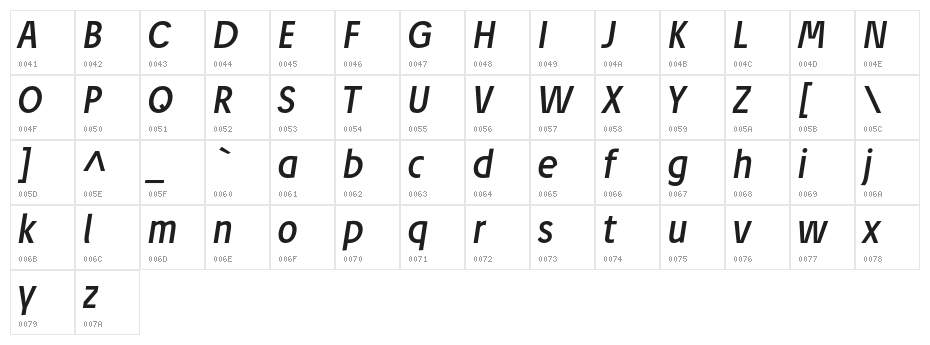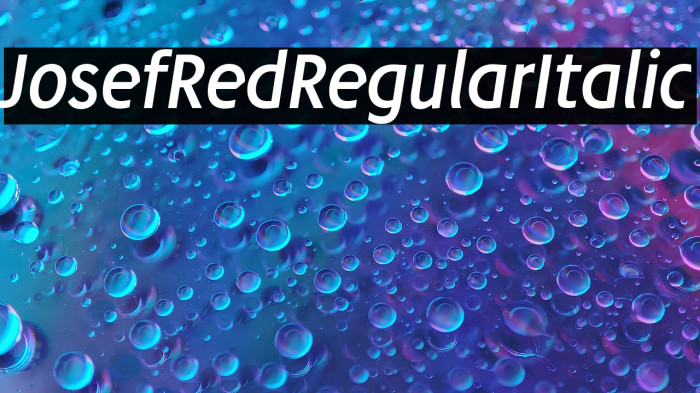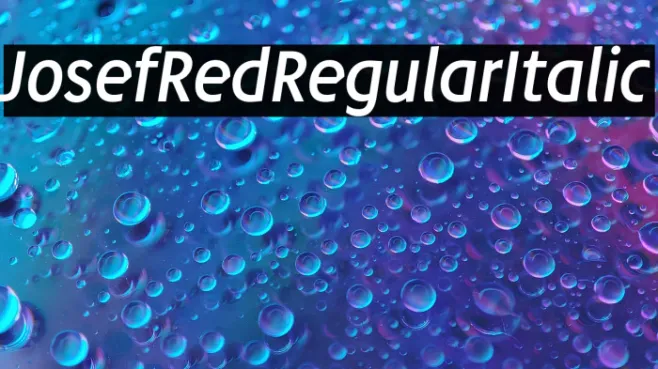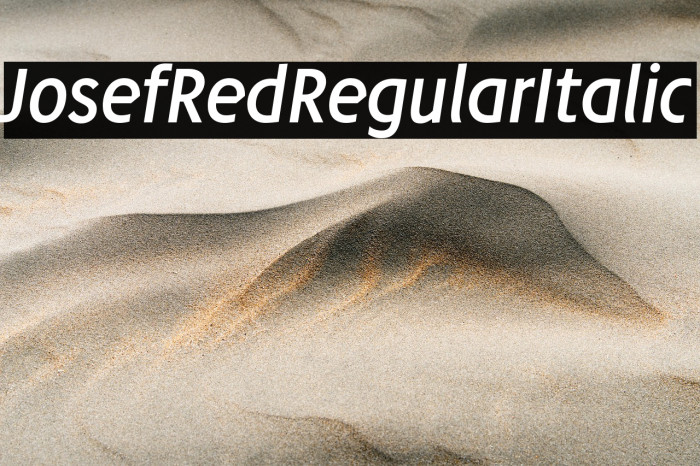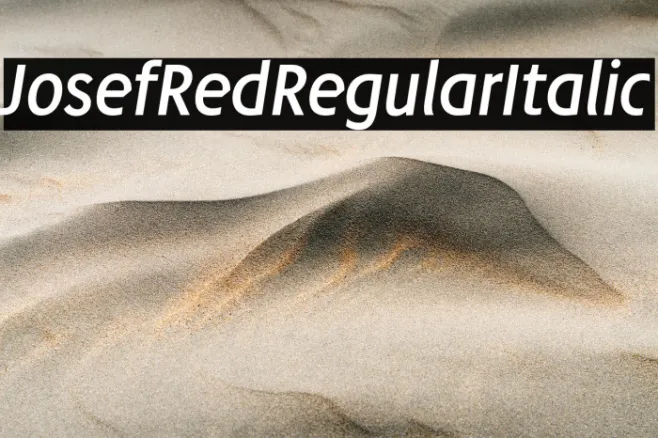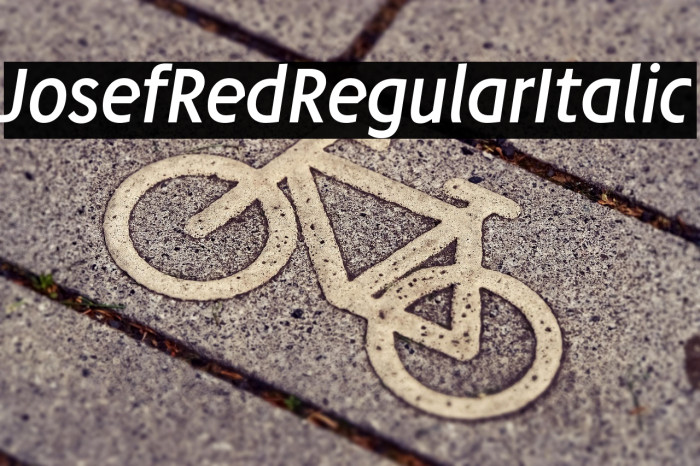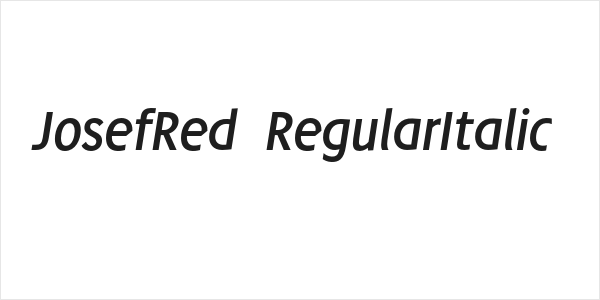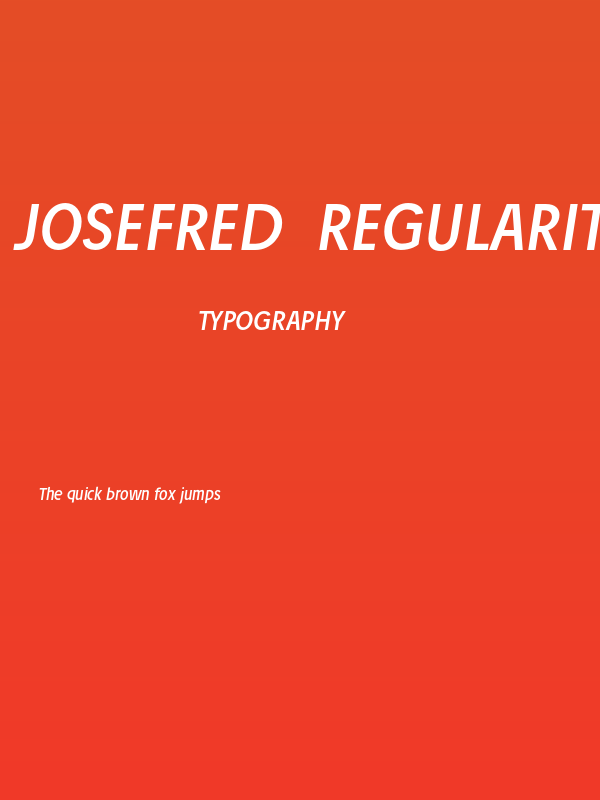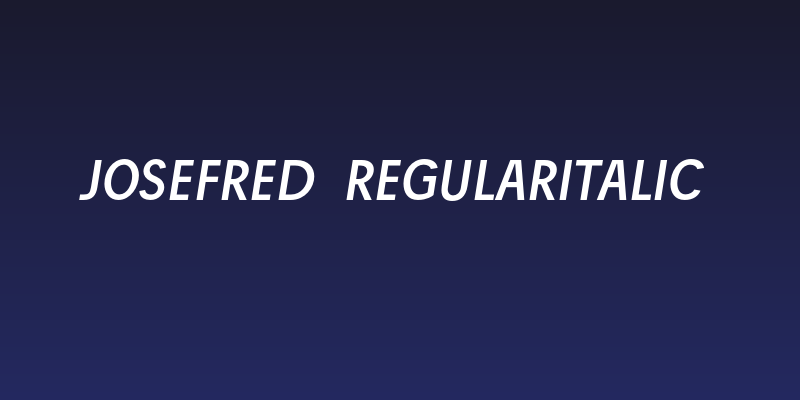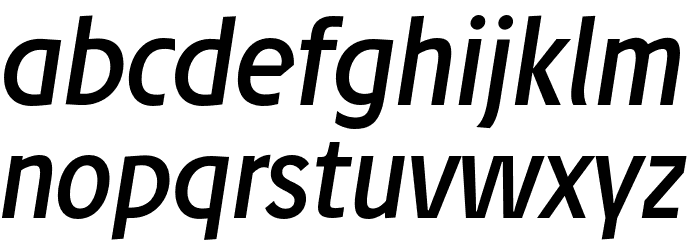
JosefRed-RegularItalic Font
JosefRed-RegularItalic Description
This font features a clean and modern design with a slight italic slant, giving it a dynamic and forward-moving appearance. The characters are well-defined with smooth curves and sharp edges, providing a professional and contemporary look. The uppercase and lowercase letters maintain a consistent style, ensuring readability and versatility across different applications. The numerals and special characters are designed to complement the alphabet, maintaining the overall aesthetic. This font is suitable for a wide range of uses, from digital to print media.